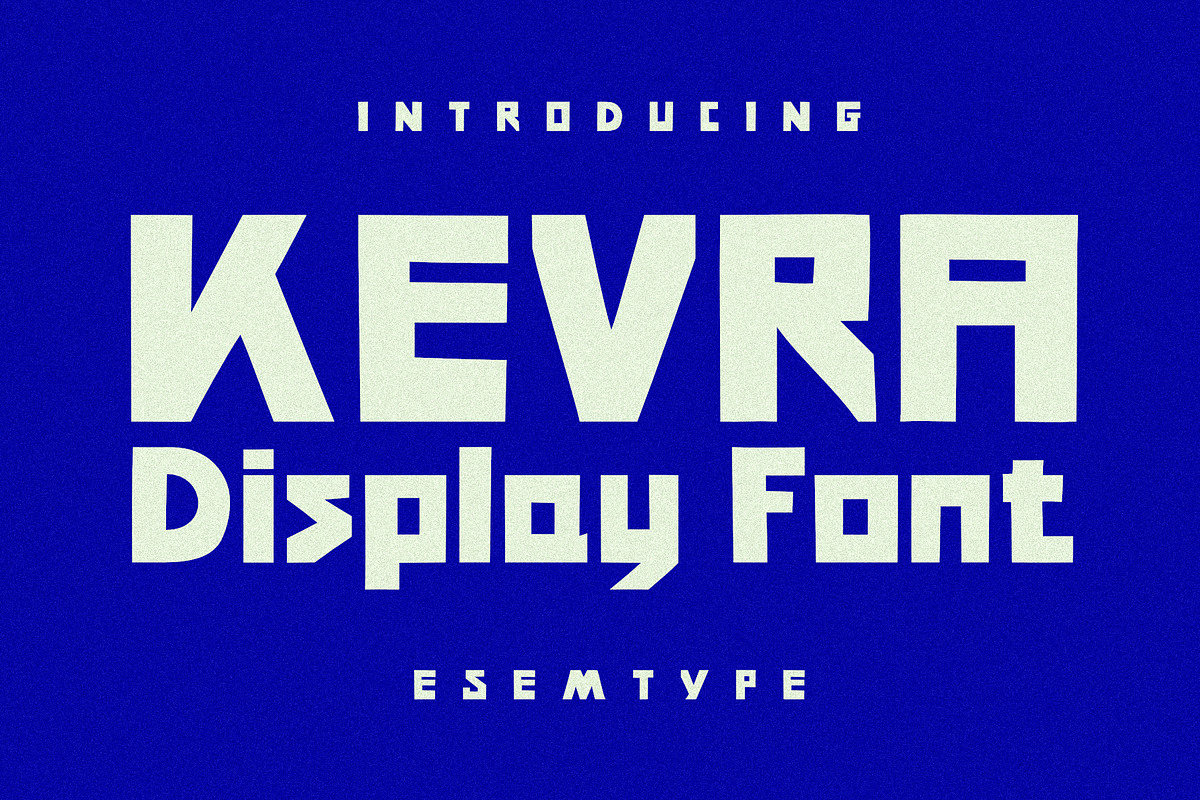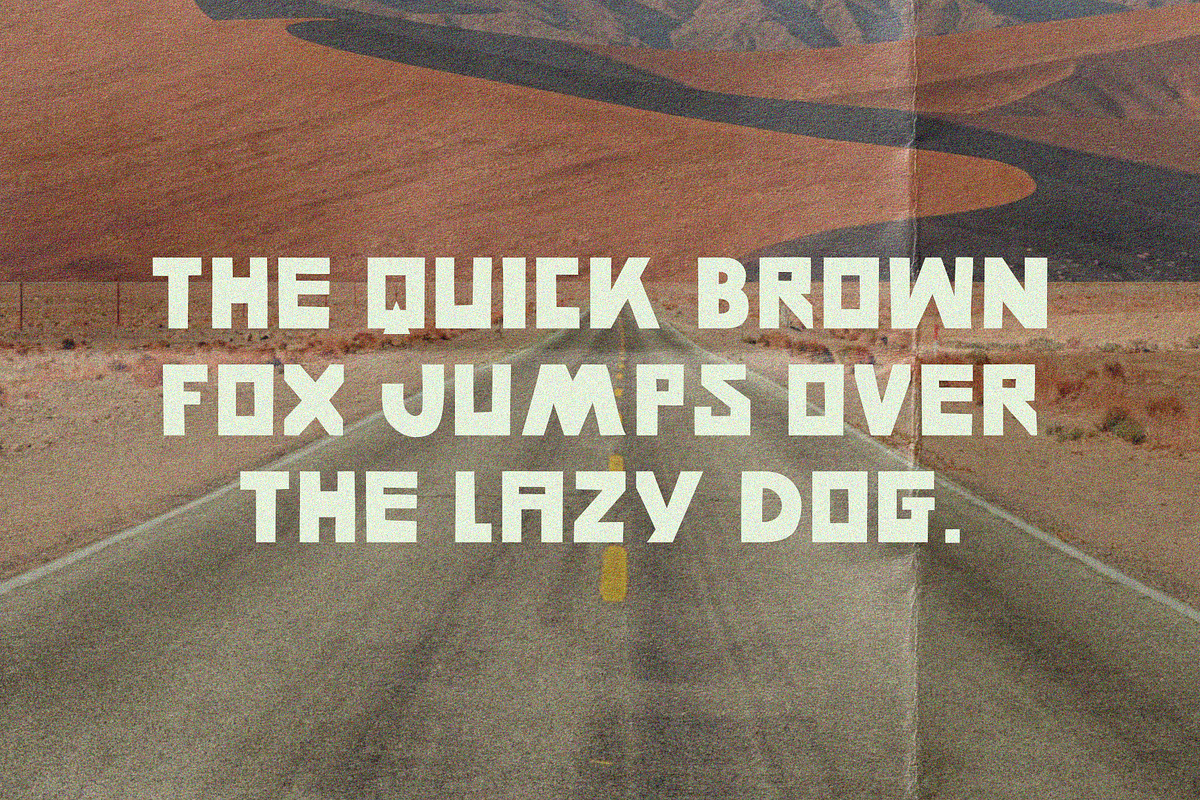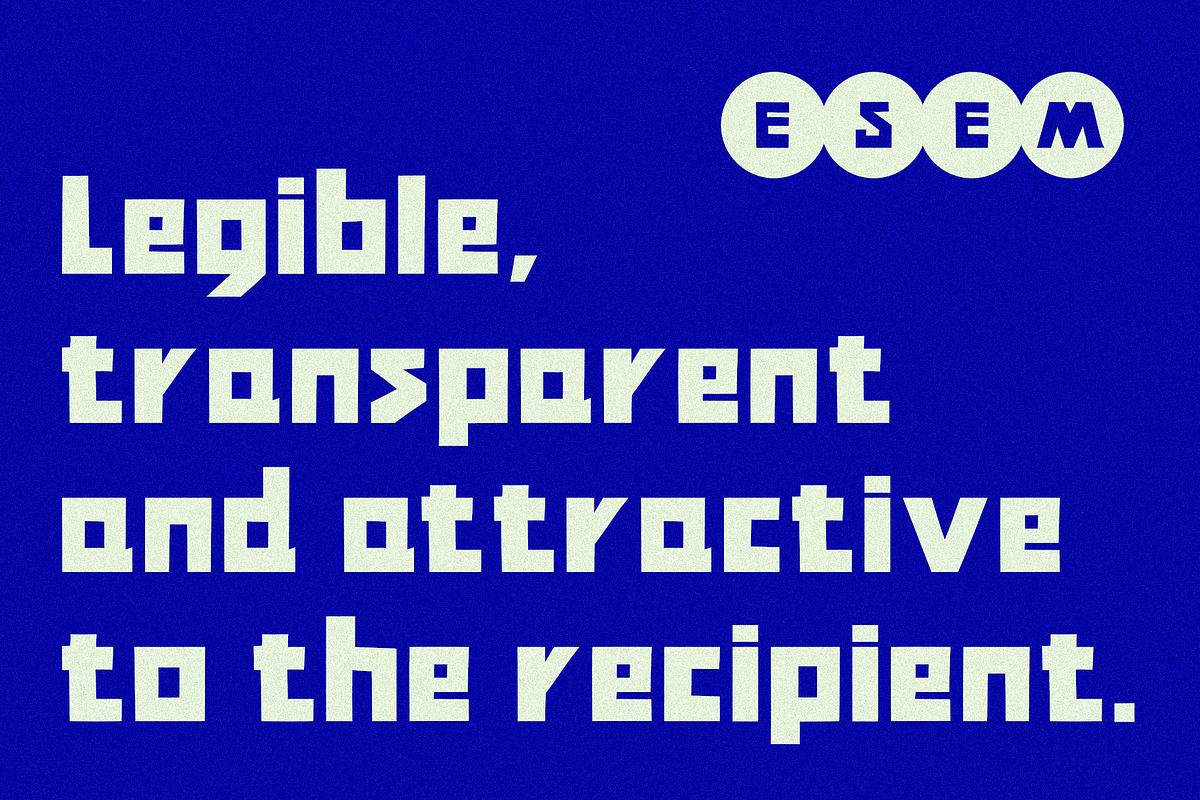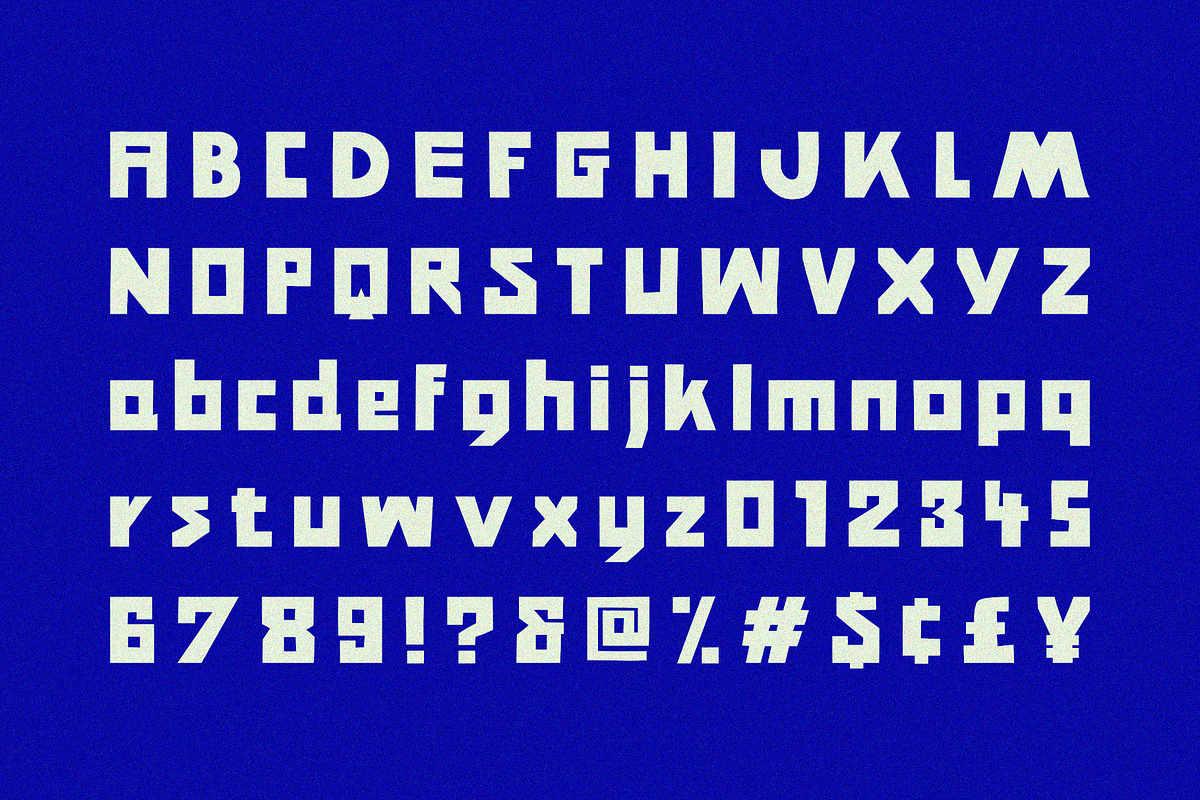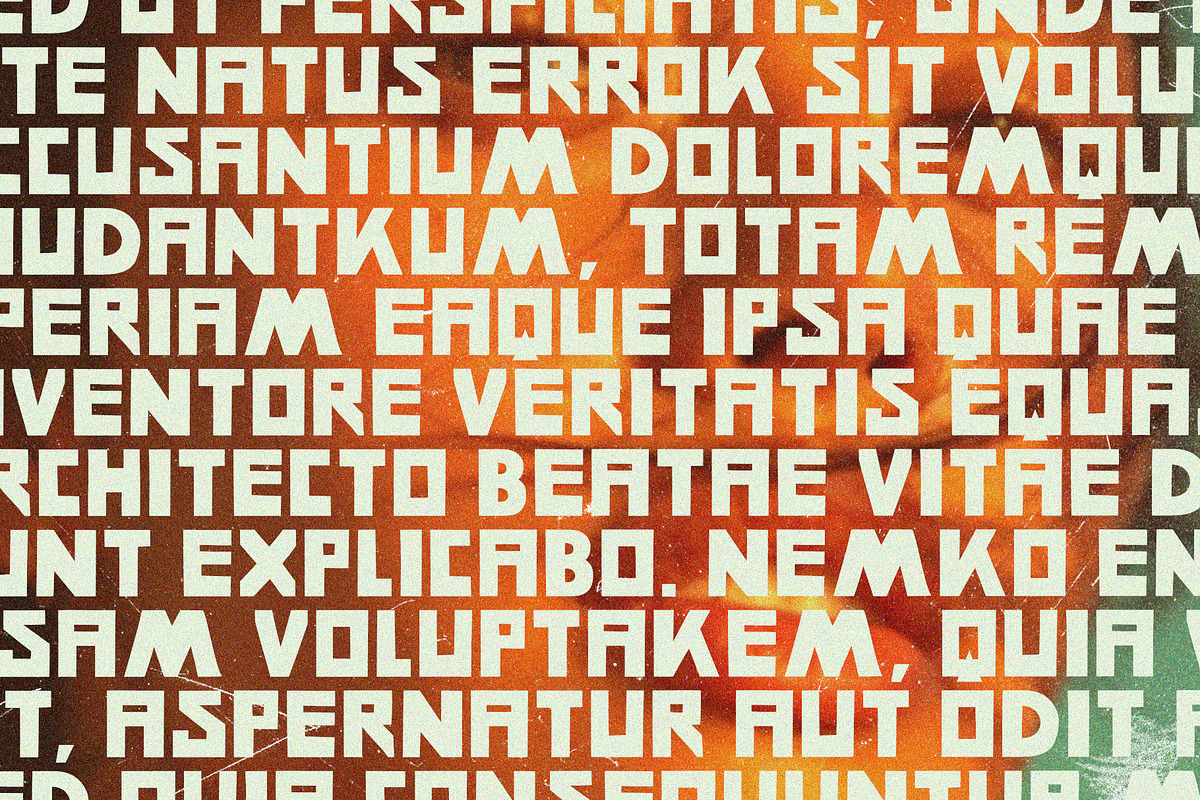
Kevra | Display Font
Kevra is a display font with clear simplified shapes. It contains 252 glyphs. Kevra font is perfect for graphic designs with an intriguing style. The font will work well in poster design, branding, logo design and apparel branding.